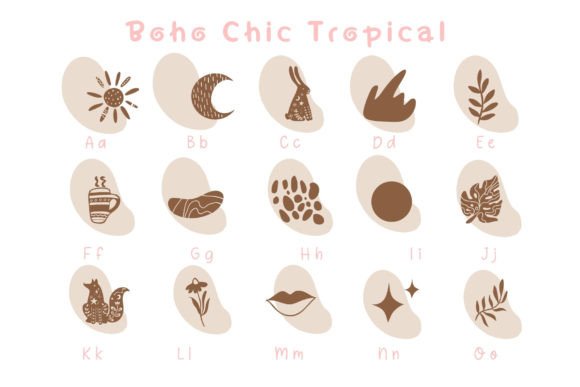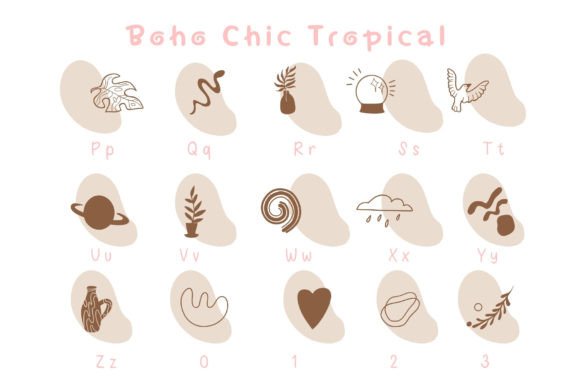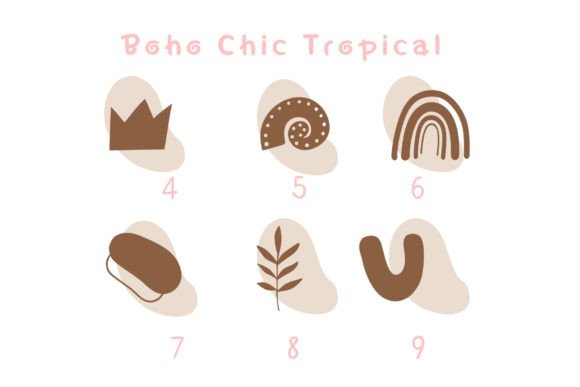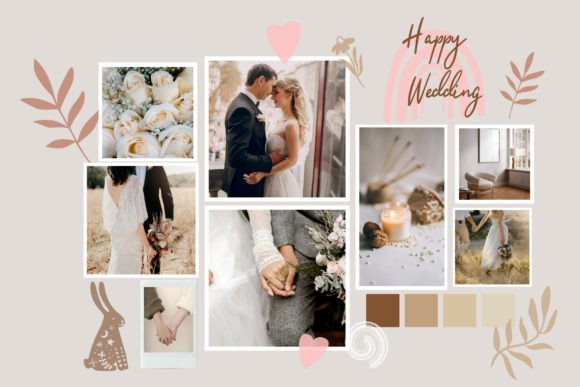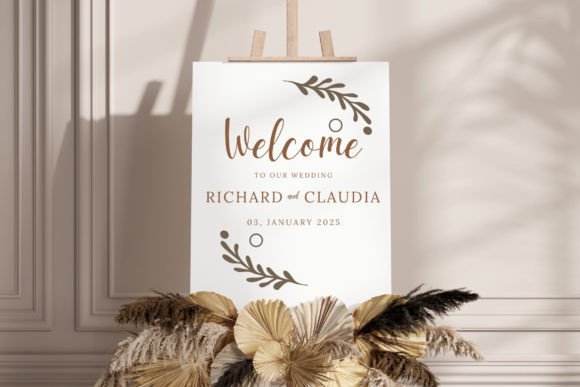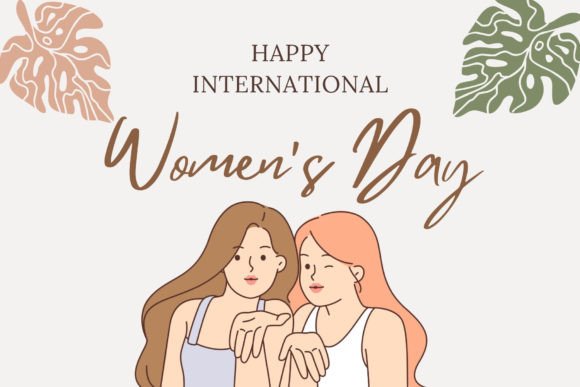
Unlock Your Creativity with Boho Chic Tropical Font
Are you a designer, crafter, or DIY enthusiast looking for a unique and stylish font to elevate your projects? Look no further than the Boho Chic Tropical Font! This beautifully designed dingbats font is the perfect addition to any creative endeavor, adding a touch of tropical flair and bohemian charm. In this article, we’ll dive into the world of Boho Chic Tropical, exploring its features, benefits, and uses, and show you how to make the most of this amazing font.
What is Boho Chic Tropical Font?
Boho Chic Tropical is a delicately designed dingbats font, carefully crafted to bring a touch of tropical elegance to your projects. The font features a stunning collection of bohemian-inspired icons, including exotic flowers, leaves, and other natural elements, all rendered in a beautiful, hand-drawn style. With its unique blend of tropical and bohemian influences, Boho Chic Tropical is the perfect font for anyone looking to add a little extra somethin’ to their designs.
Key Features of Boho Chic Tropical Font
- Unique and Exclusive Design: Boho Chic Tropical features a one-of-a-kind design that’s sure to make your projects stand out from the crowd.
- Hand-Drawn Style: The font’s hand-drawn style gives it a personal, organic feel that’s perfect for crafting and DIY projects.
- Tropical and Bohemian Influences: The font’s tropical and bohemian influences add a touch of exotic elegance to any project.
- Dingbats Font: As a dingbats font, Boho Chic Tropical features a collection of icons and symbols, rather than traditional letters and numbers.
Benefits of Using Boho Chic Tropical Font
So why choose Boho Chic Tropical for your next project? Here are just a few benefits of using this amazing font:
- Add a Touch of Elegance: Boho Chic Tropical adds a touch of tropical elegance to any project, making it perfect for crafting, DIY, and design applications.
- Stand Out from the Crowd: With its unique design and exclusive style, Boho Chic Tropical is sure to make your projects stand out from the crowd.
- Easy to Use: As a dingbats font, Boho Chic Tropical is easy to use and can be incorporated into a wide range of projects, from digital designs to handmade crafts.
- Versatile: Boho Chic Tropical can be used in a wide range of applications, from stationery and invitations to social media graphics and website designs.
Using Boho Chic Tropical Font in Your Projects
So how can you use Boho Chic Tropical in your projects? Here are a few ideas to get you started:
- Stationery and Invitations: Add a touch of tropical elegance to your stationery and invitations with Boho Chic Tropical.
- Social Media Graphics: Use Boho Chic Tropical to create eye-catching social media graphics that showcase your brand’s personality.
- Website Design: Add a touch of bohemian charm to your website design with Boho Chic Tropical.
- Crafting and DIY Projects: Use Boho Chic Tropical to add a personal touch to your crafting and DIY projects, from scrapbooking to woodworking.